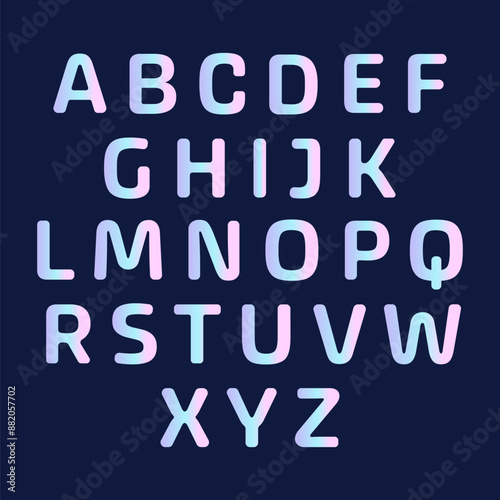
Vector font with vibrant color, Abstract modern urban alphabet fonts. Typography sport, technology, fashion, digital, future creative logo vector font. vector illustration